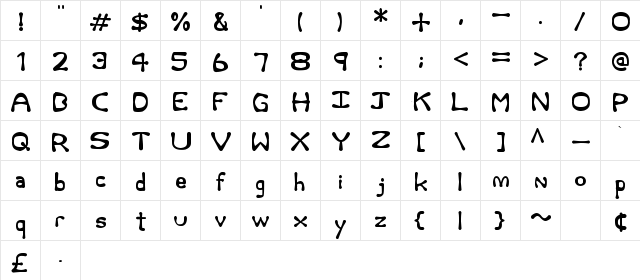
Rum and Bones Regular
Design Context for Rum and Bones Typeface
Rum and Bones is a composed and adaptable typeface that performs quietly and consistently across a wide range of design contexts.